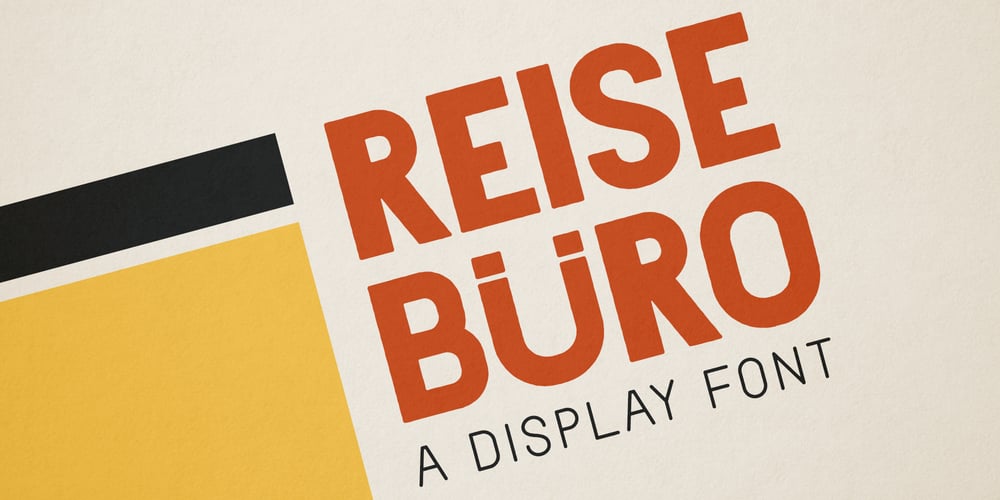
Reiseburo Display
Reiseburo Display font
Reiseburo Display Font Family was designed by Elyas Beria and published by Elyas Beria. Reiseburo Display contains 4 styles and family package options. Pack your bag, Reisebüro is about to take you on a romp to the most wunderbar destinations around the globe.This quirky and playful display font is inspired by hand painted lettering.Pick a city from the list in the travel agency’s window and book your flight—your glass of champagne will be waiting for you in First Class.4 Styles included: Regular Oblique Thin Thin Italic